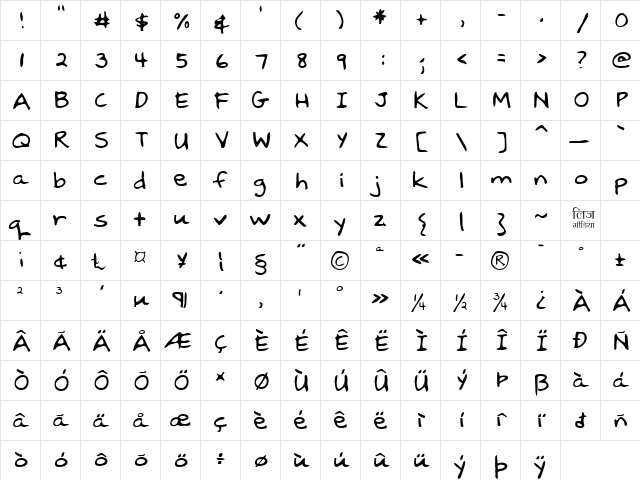
LEHN037 Regular
Design Context for LEHN037 Typeface
LEHN037 is a composed and adaptable typeface that performs quietly and consistently across a wide range of design contexts.